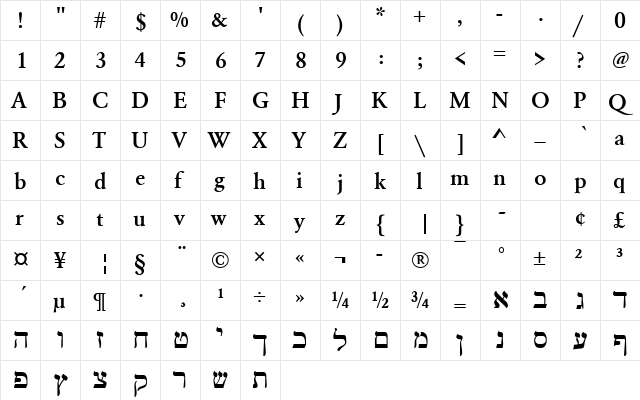
HehenHebTBol Regular
Design Context for HehenHebTBol Typeface
HehenHebTBol takes a measured approach to typography — its balanced proportions and neutral character make it a reliable workhorse for both digital and print work.